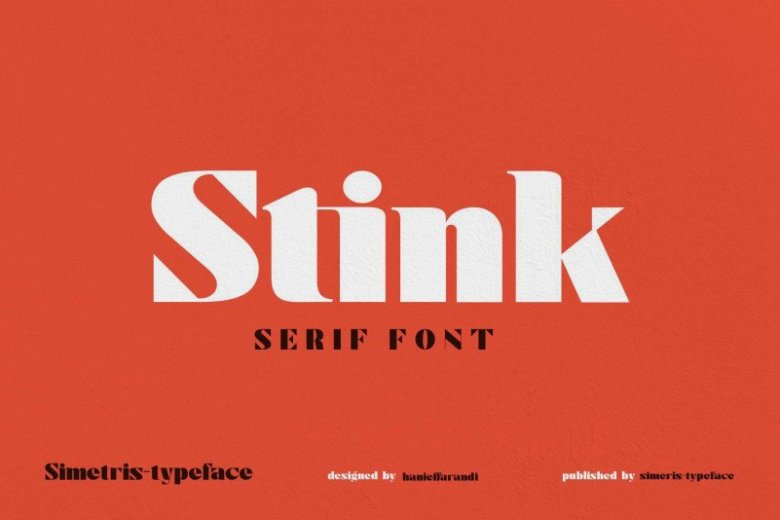
Stink Font
Stink Font is a bold serif font with an edge – it’s a cool modern take on a retro classic, and it’s ready to make a lasting impression on your merchandise, quote designs, header text, logos & branding, advertisements and much more.